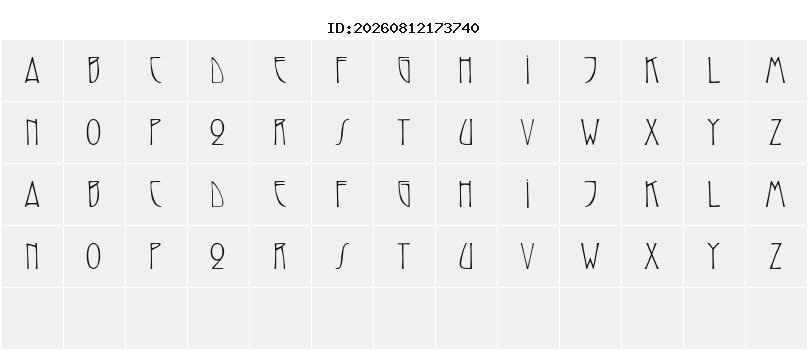
ReynoldCaps Preview
• Font Name: ReynoldCaps
• Full Font Name: ReynoldCaps
• PostScript Name: ReynoldCaps
About ReynoldCaps.ttf
ReynoldCaps.ttf is a modern, elegant sans-serif font designed for ultimate readability and visual harmony. Perfect for branding, headlines, web design, and print materials.